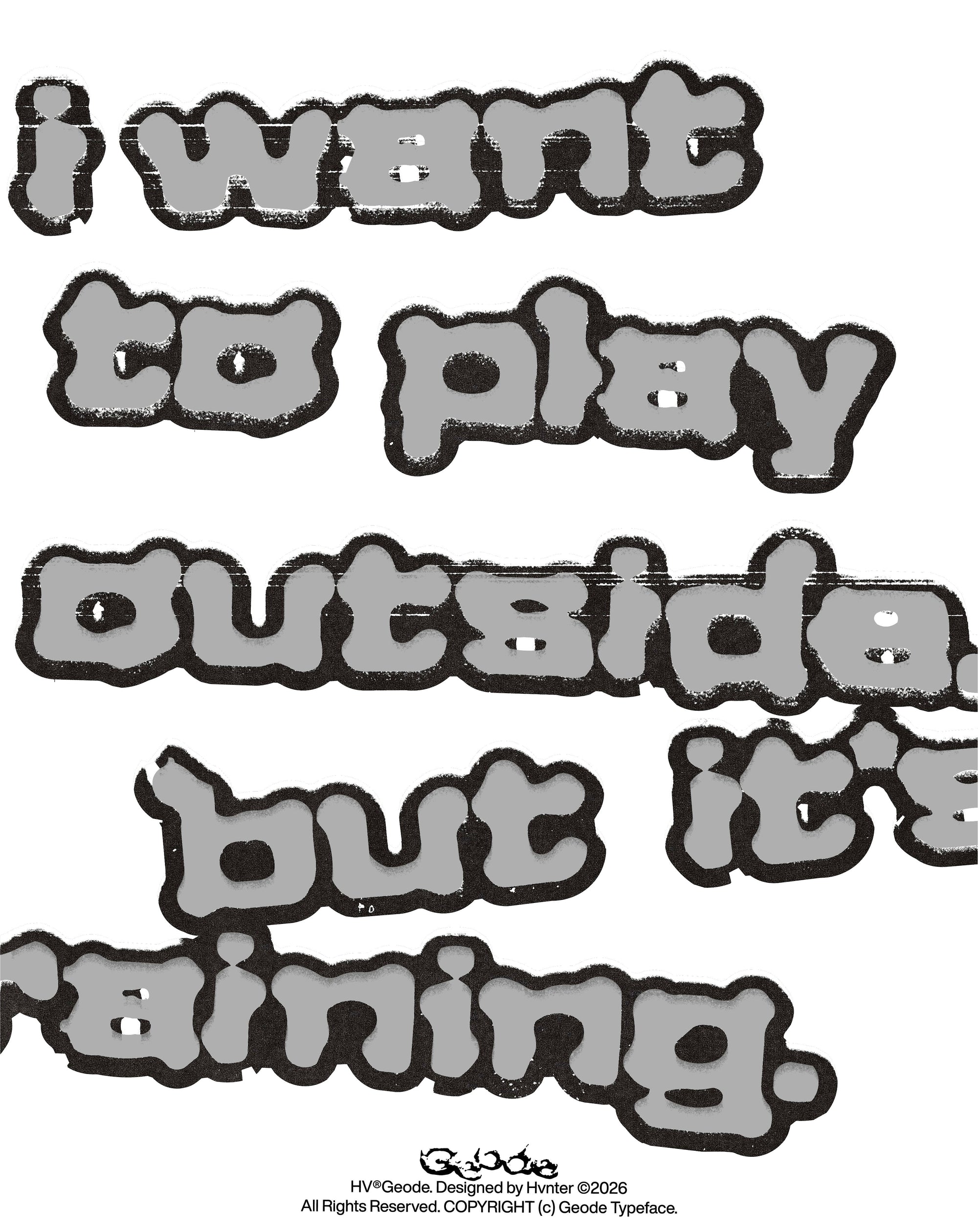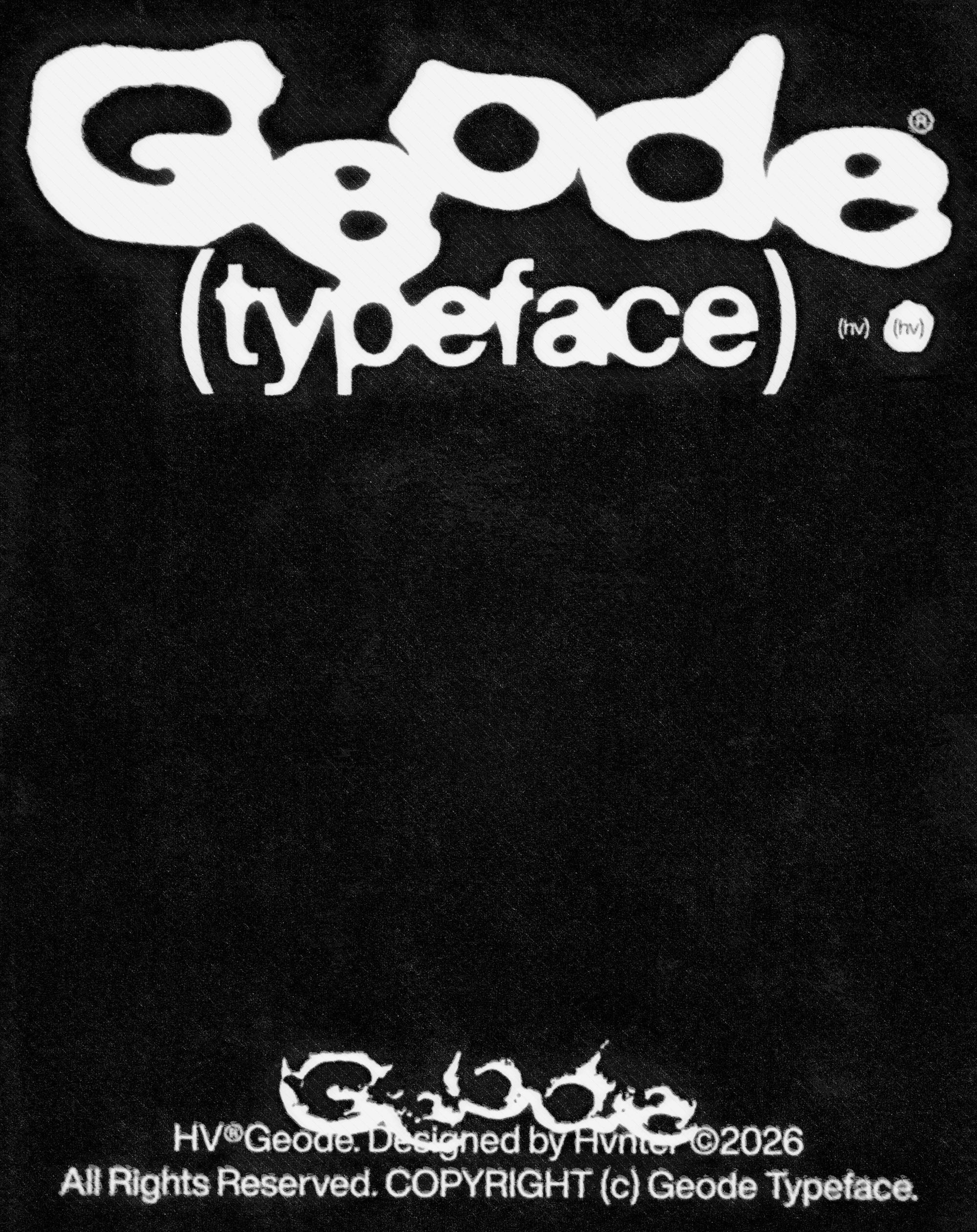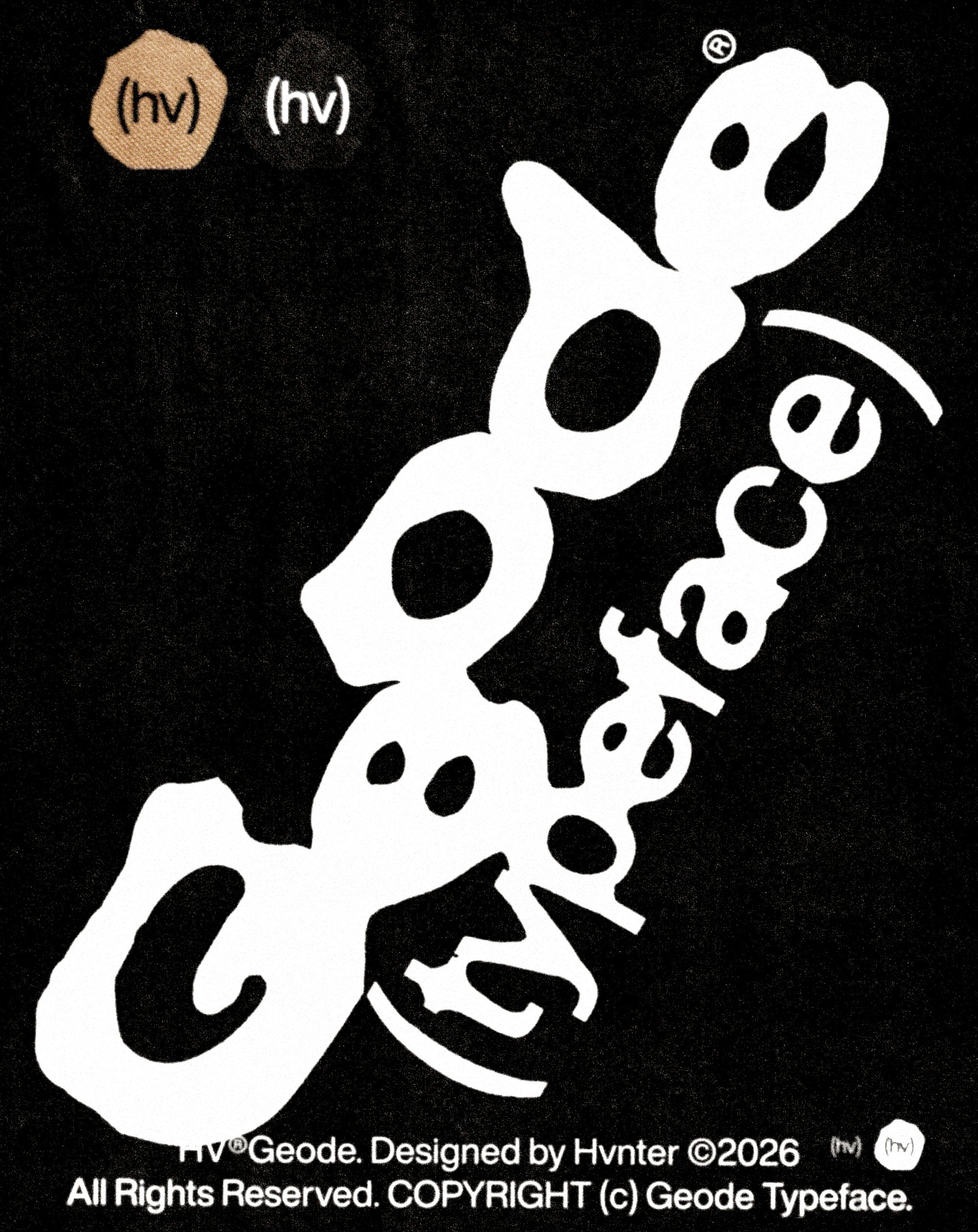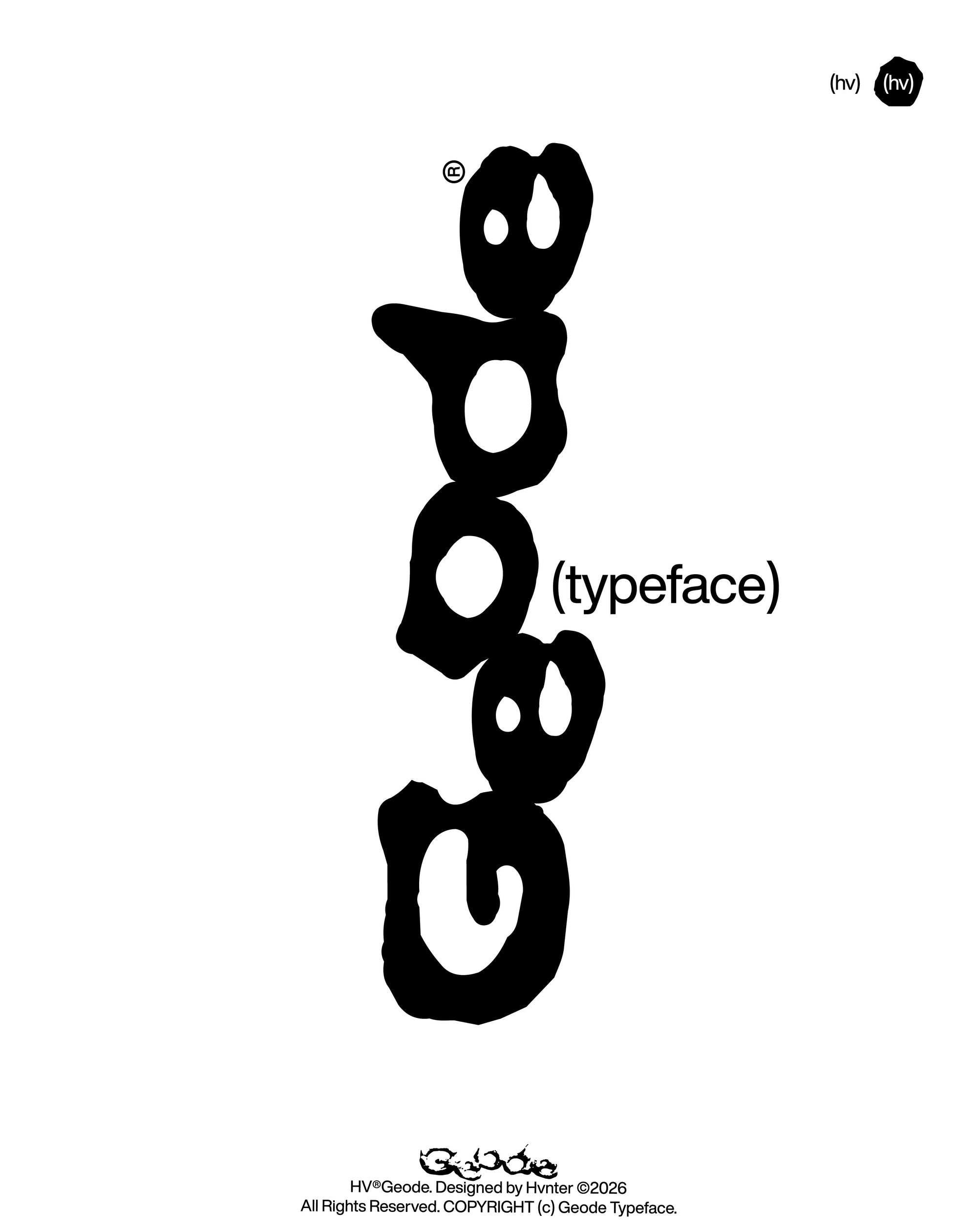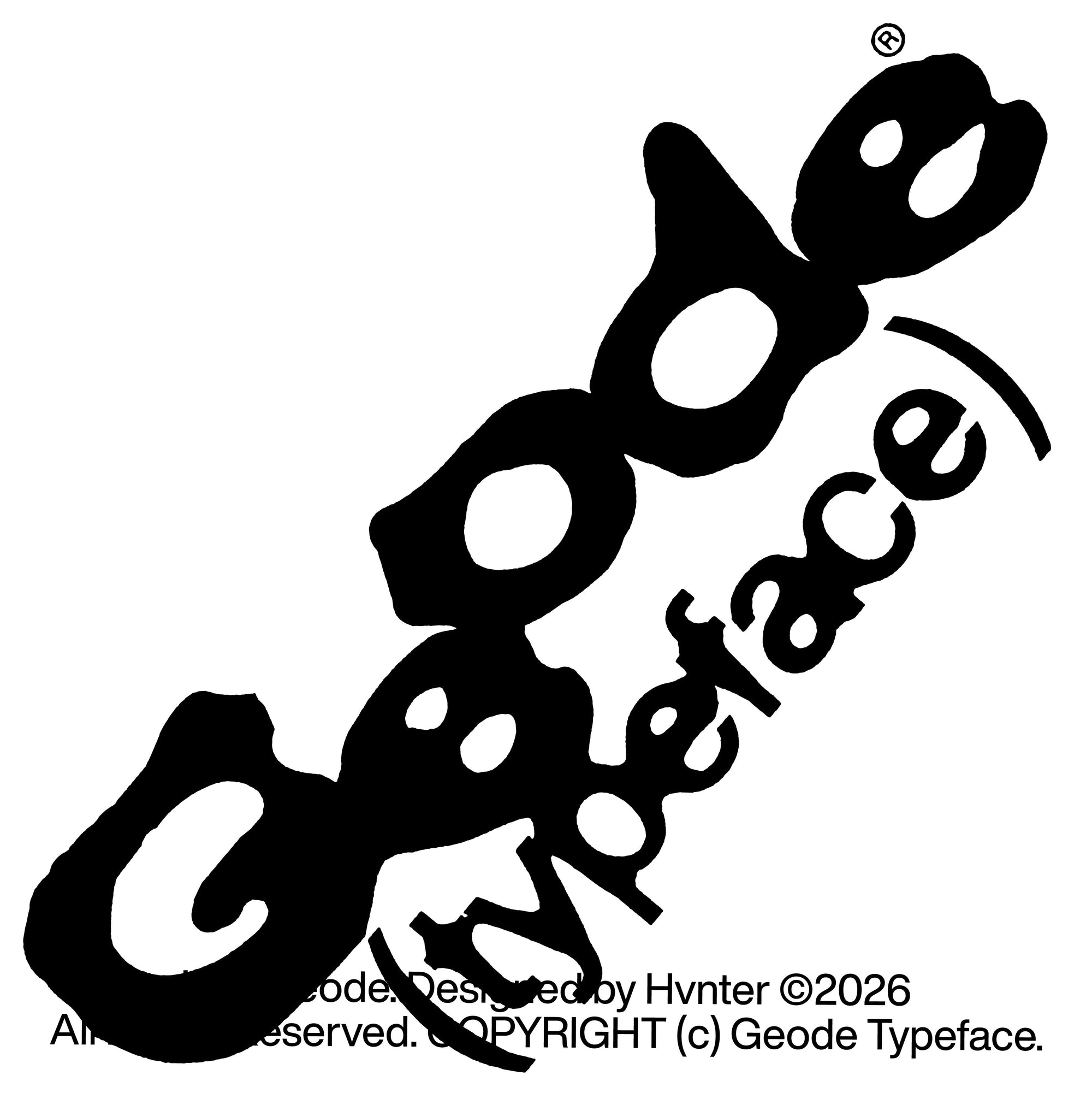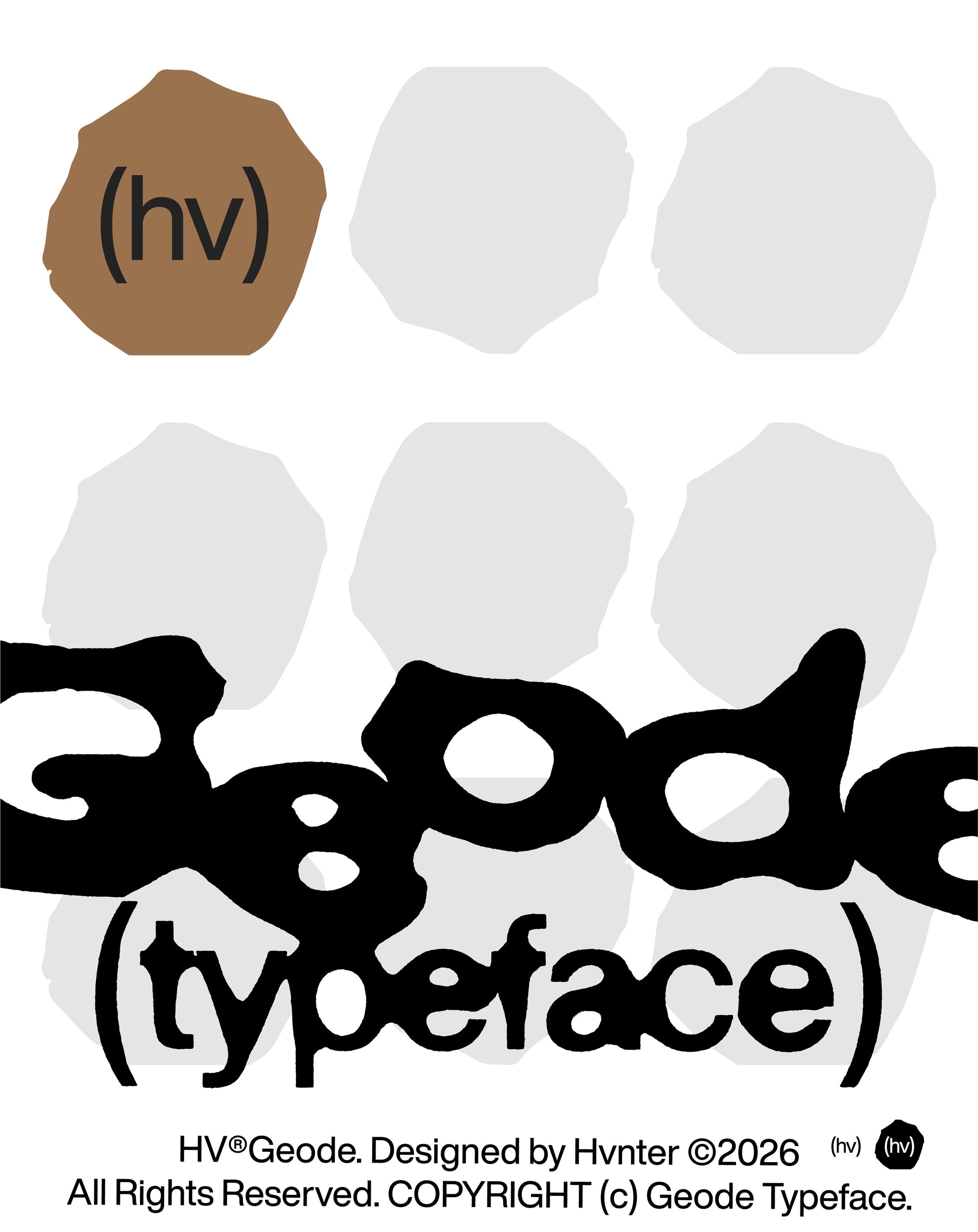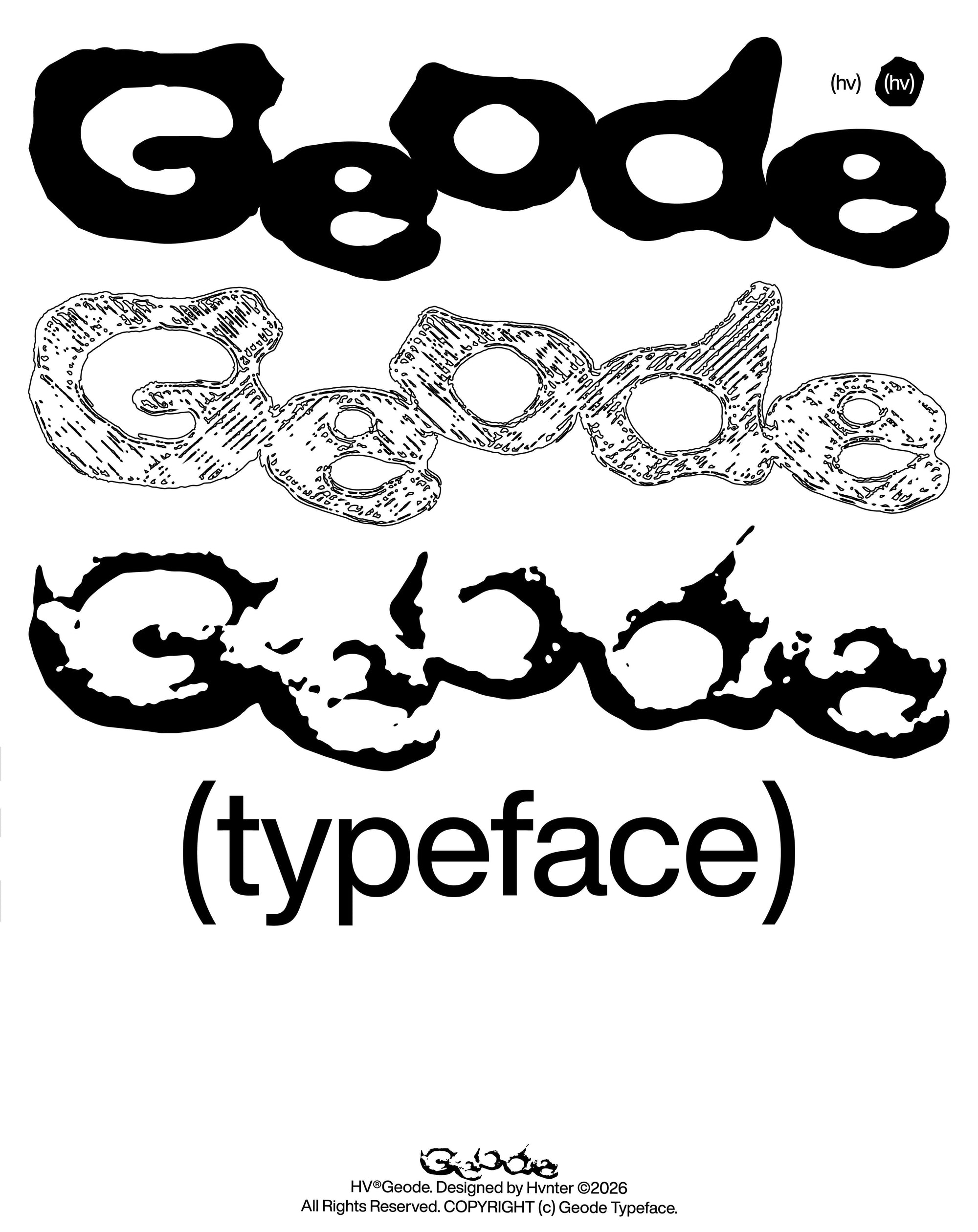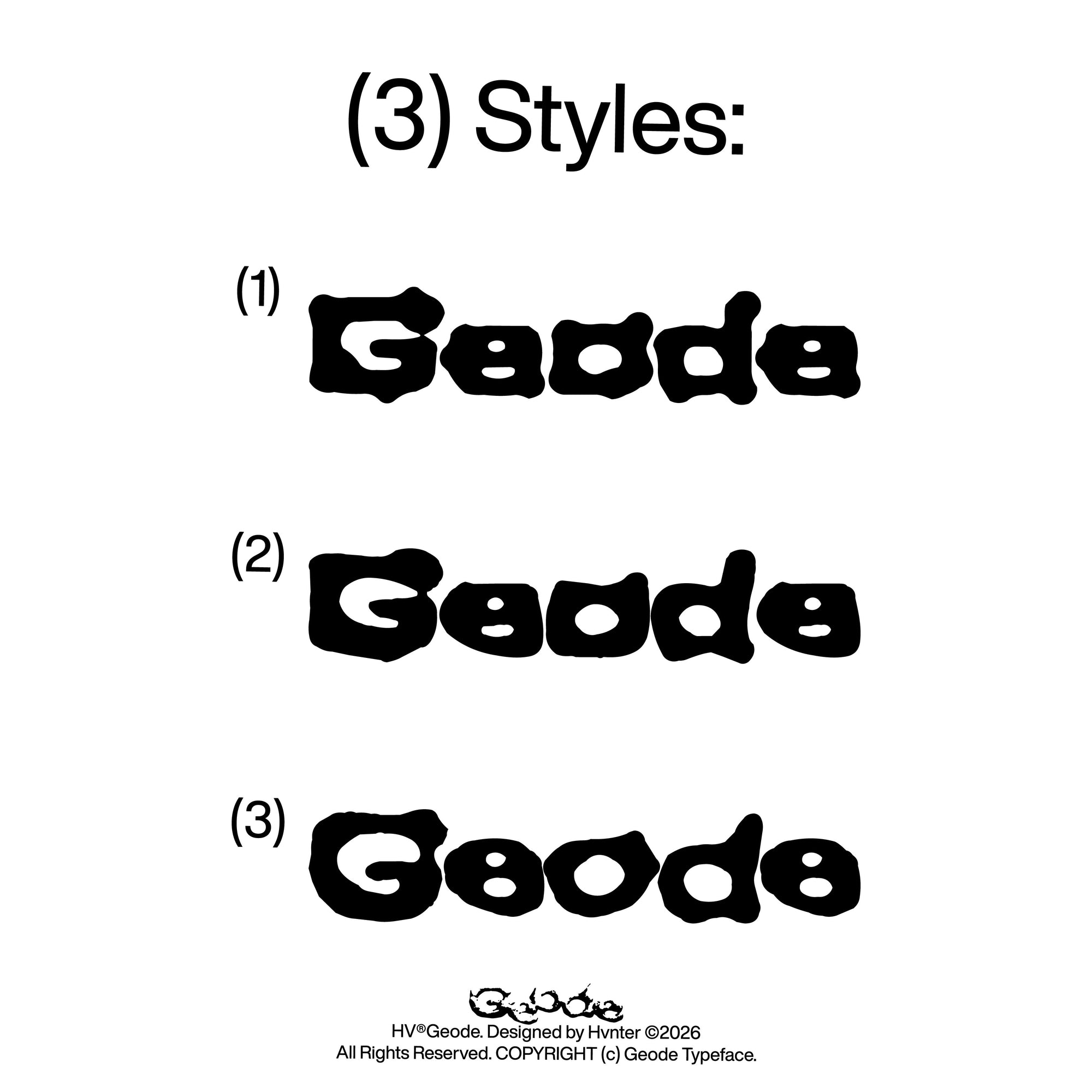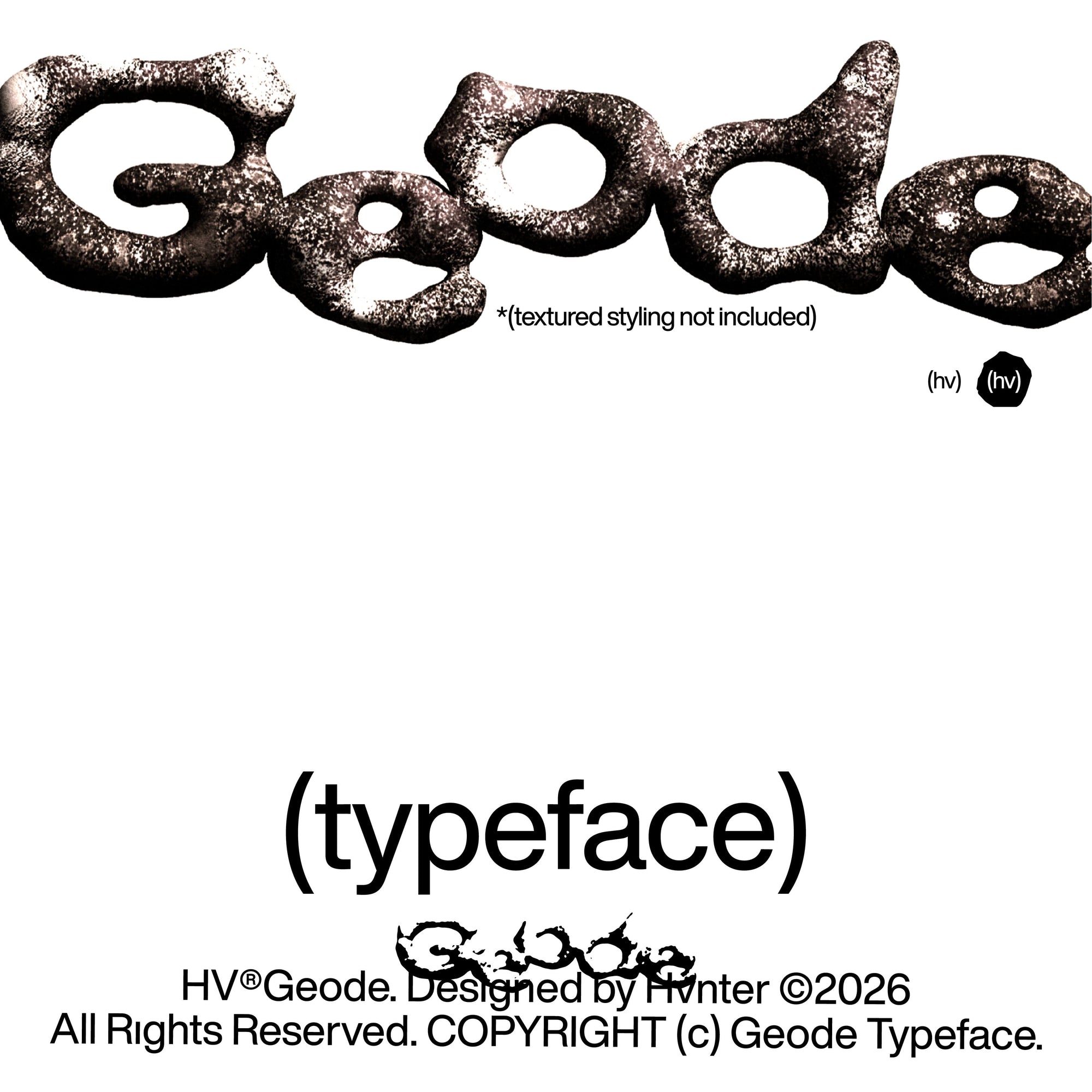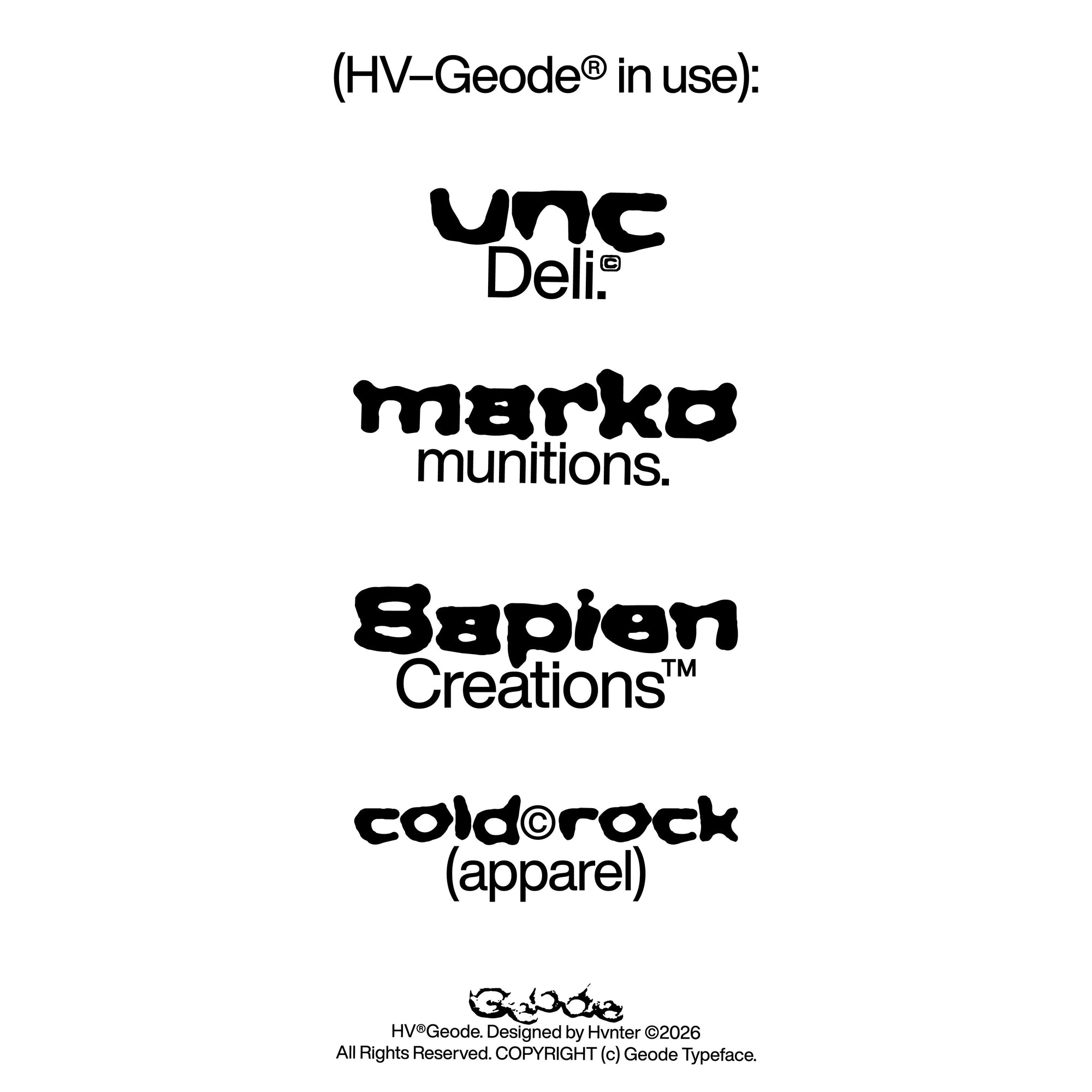
HV Geode Typeface
HV Geode is a bold organic display typeface designed by hvnter. The letterforms are thick, irregular, and deliberately uneven — strokes swell and contract unpredictably, edges ripple instead of resolving cleanly, and the overall silhouette reads closer to something found in nature than drawn on a grid.
It comes in three styles that vary in visual weight and surface texture, moving from a rougher, more detailed finish in Style 1 to a denser, heavier mass in Style 3. All three share the same core character and work together within a single visual system, giving you real flexibility without losing consistency.
At display scale, HV Geode is built to hold attention on its own. It works across poster design, streetwear branding, album artwork, editorial titles, packaging, and any brand identity that needs typography with a strong, unconventional personality.
• 3 Styles (Regular, Smooth, Smoother)
• Lowercase
• Alternates